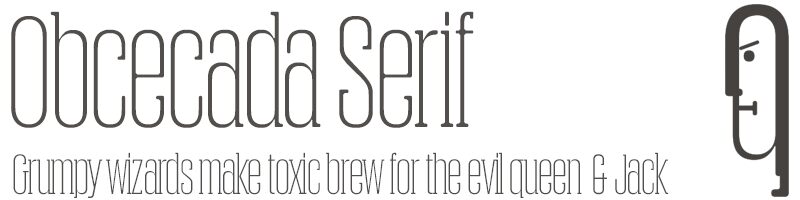
Obcecada Serif is a striking geometric serif font that commands attention. Its condensed, fine-tuned form exudes a sense of precision and elegance. The rounded finishes on the horns and joints contribute a subtle softness, tempering the boldness of its design. This typographic marvel seamlessly blends clean lines with organic curves, creating a truly unique aesthetic. Obcecada Serif's versatility makes it a compelling choice for a wide range of design applications, from editorial layouts to branding and packaging.
Its refined yet impactful presence effortlessly elevates any visual composition, infusing it with a distinct sense of style and sophistication.